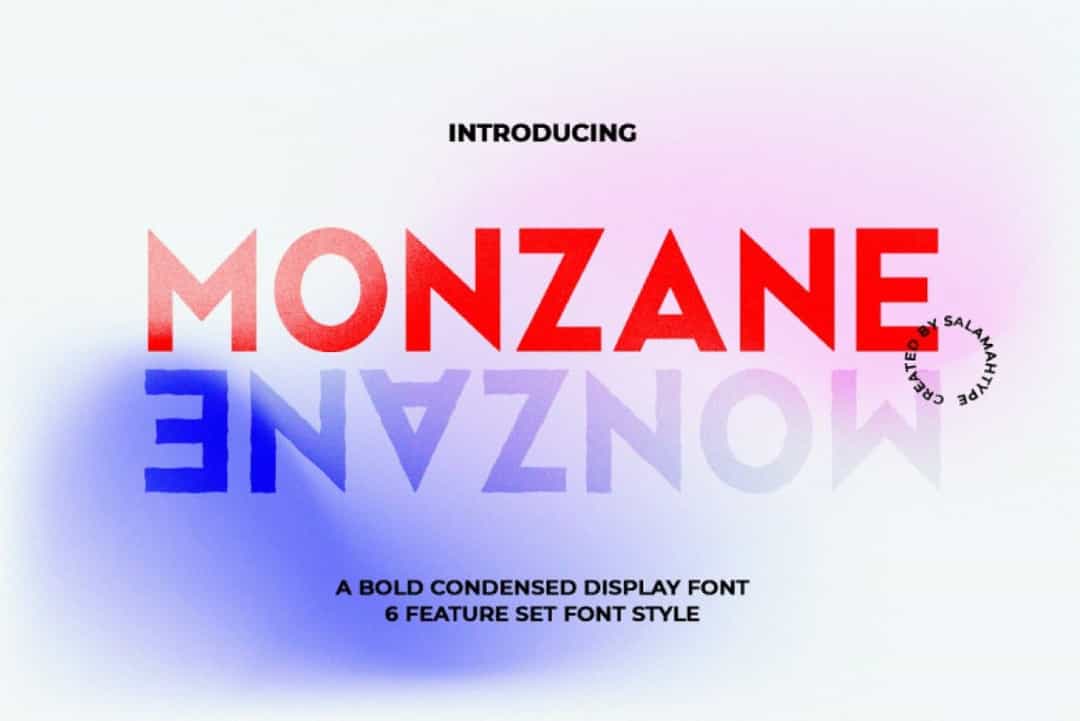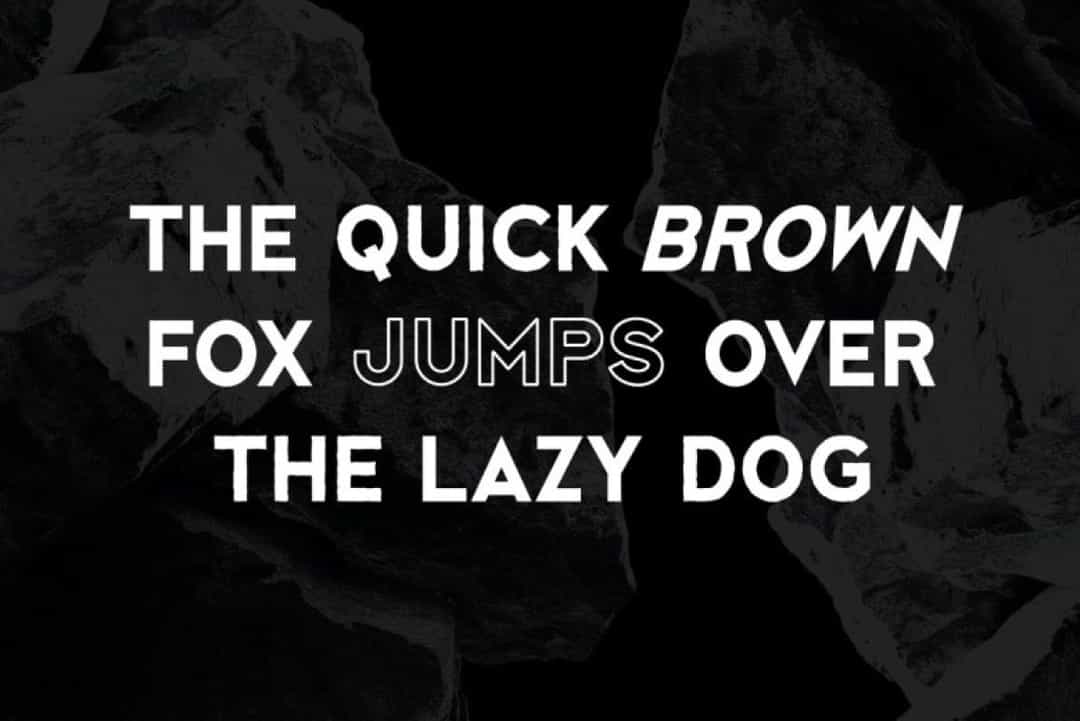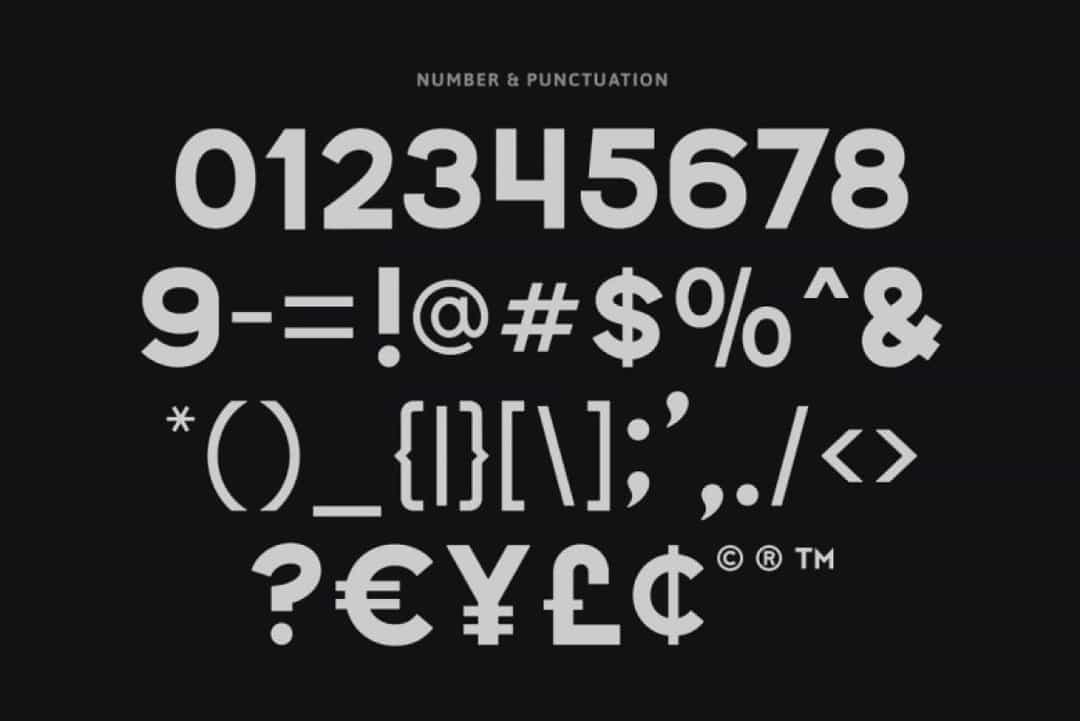
Monzane stands out with its powerful font style made entirely up of capital letters. Distinguished by its striking and captivating appearance, this font style can be utilized for various design applications including advertising and branding campaigns, news headlines and graphic design work.